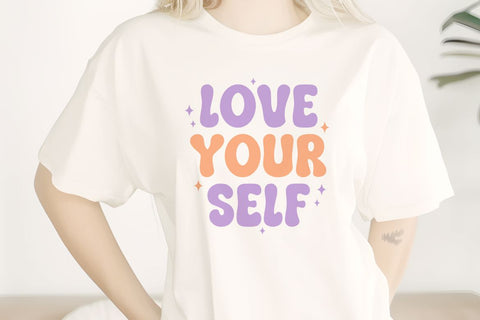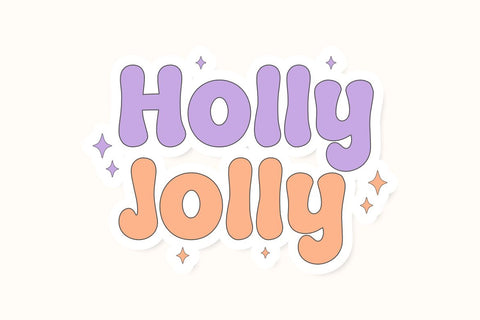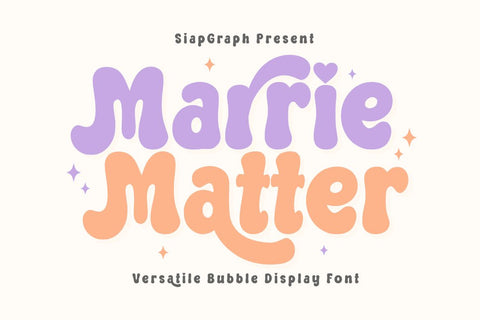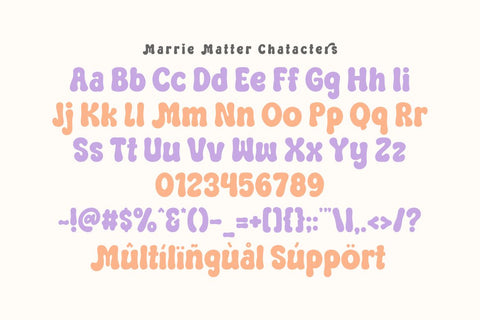
Marrie Matter - Retro Groovy Font
Marrie Matter is a versatile bubble display font that radiates playful energy, happiness, and a cheerful vibe. Featuring thick, rounded, and bouncy letterforms, this typeface is expertly crafted to give your designs a soft, lovely, and friendly appearance. Its bold and substantial construction is specifically optimized for the crafting community, ensuring a seamless and frustration-free experience for vinyl cutting, sublimation, and high-quality digital printing.
Perfect for: creating high-impact SVG cut files, personalized stickers, kids' party decorations, adorable nursery wall art, custom t-shirt designs, greeting cards, playful branding, and vibrant social media graphics. Whether you are a professional Print on Demand (POD) seller or a dedicated DIY enthusiast, this font offers the ideal balance of readability and whimsical charm.
Great for holiday themes such as Birthdays, Valentine's Day, Spring celebrations, and Children's Day, adding a sweet, bubbly, and retro-inspired personality to all your seasonal design collections!